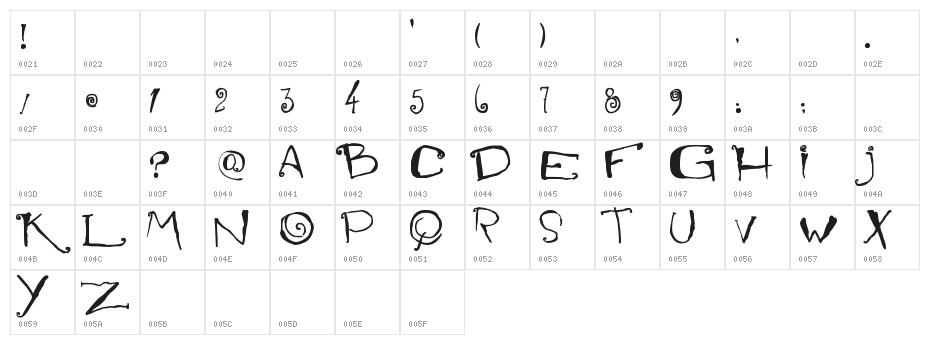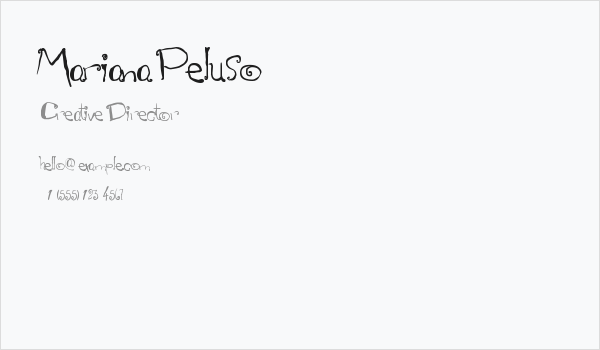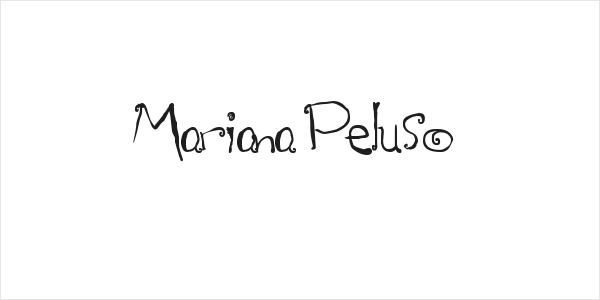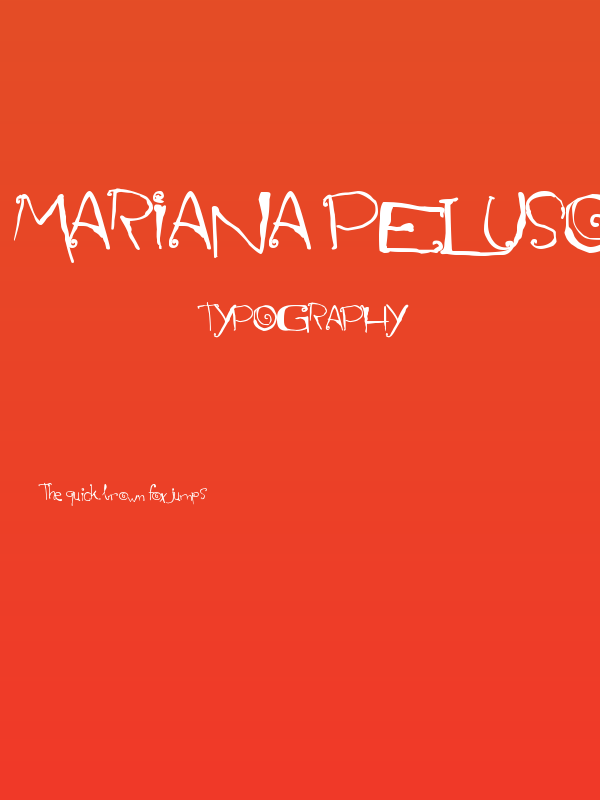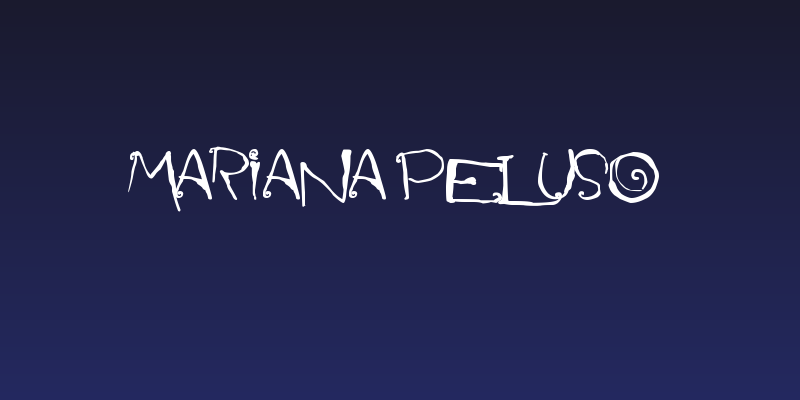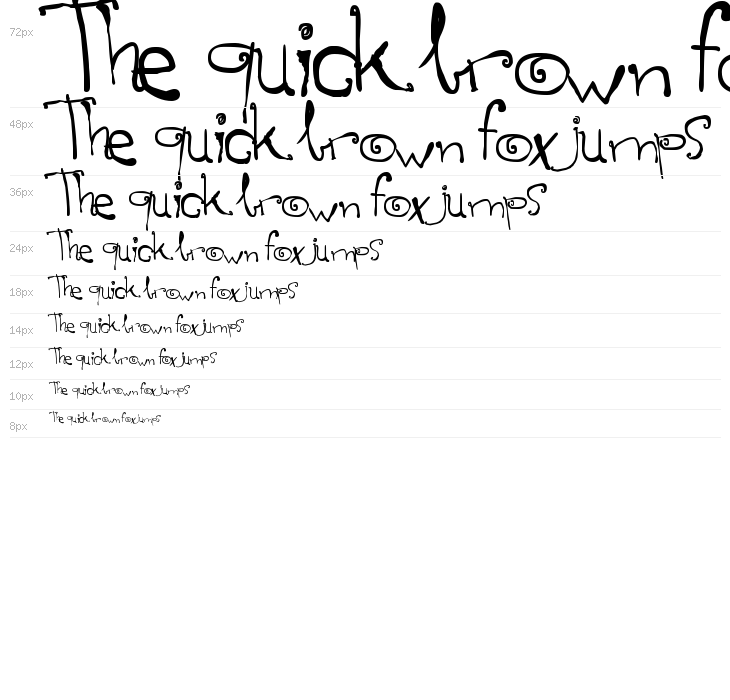
Mariana Peluso Font
Mariana Peluso Description
This font exhibits a whimsical and playful style, characterized by its irregular and quirky letterforms. The uppercase letters feature unique embellishments, such as swirls and loops, giving them a distinct, artistic flair. The lowercase letters maintain a similar playful aesthetic, with varying stroke widths and unexpected curves. Numbers and special characters continue this theme, incorporating spirals and other decorative elements. The overall appearance is dynamic and lively, making it suitable for creative and informal applications.
| Overall Style | Playful, Artistic |
| Proposed Projects | Ideal for children's books, creative posters, playful branding, and artistic invitations. |